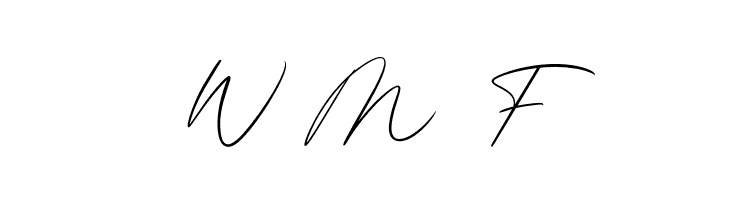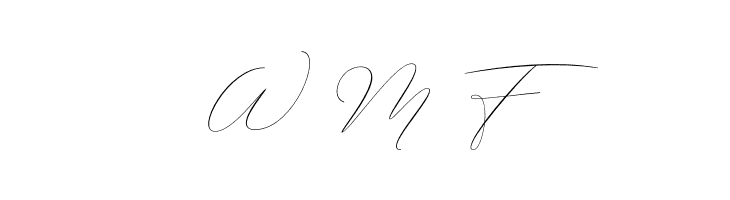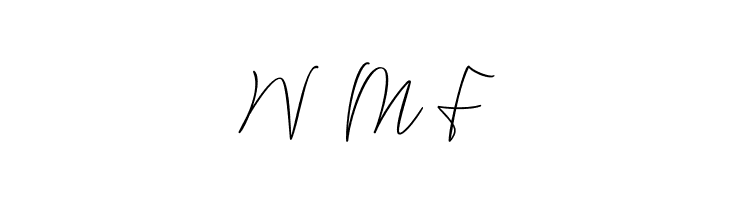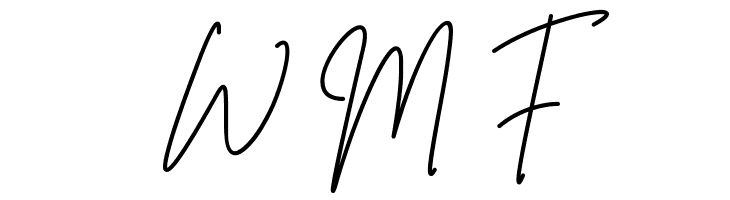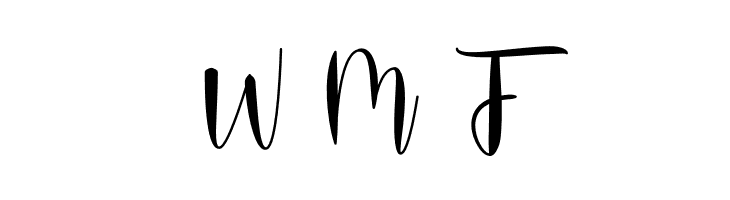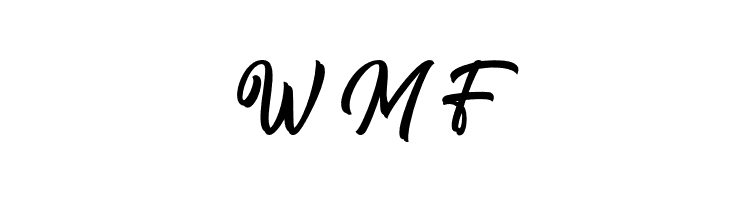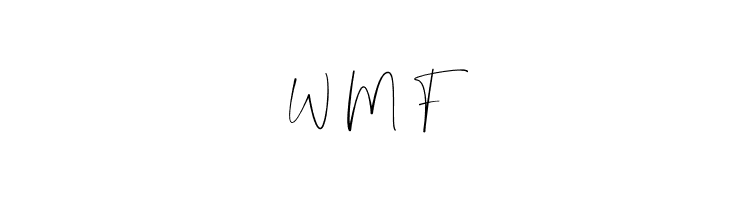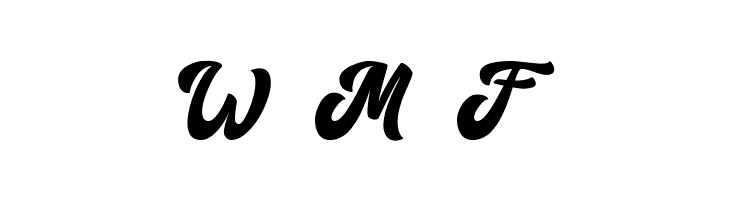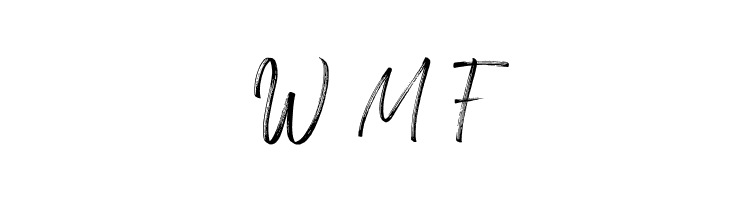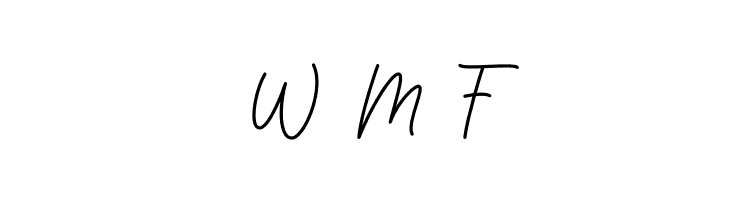
A flowing, cursive script font with elegant, connected strokes.
An elegant, flowing script font with a handwritten style.
A fluid and elegant handwritten font with artistic loops and curves.
A fluid and elegant handwritten script with connected strokes and a natural flow.
A lively, expressive script font with playful loops and swirls.
A cursive, calligraphic font with elegant, flowing characters.
A flowing, cursive font with a personal, handwritten style.
A cursive, handwritten-style font with elegant, flowing characters.
A modern, handwritten font with fluid strokes and a brush-like texture.
A modern, elegant handwritten script font with fluid, connected letterforms.